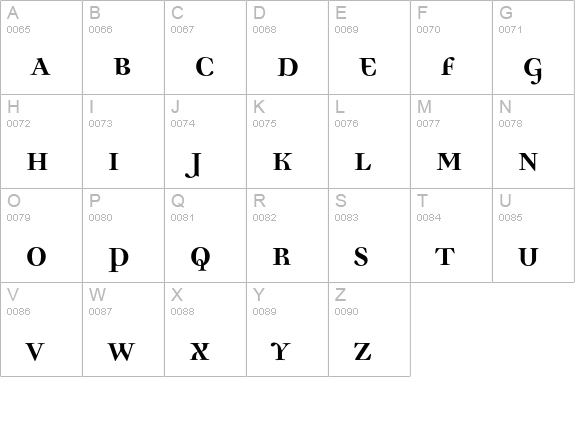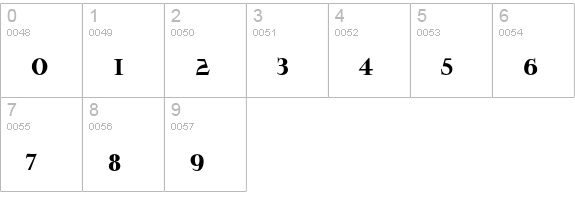
DemocraticaBoldLining Font Details
DemocraticaBoldLining is a striking and modern font that exudes confidence and sophistication. With its bold lettering and clean lines, this typeface is perfect for making a bold statement in any project. Whether used for headlines, logos, or branding materials, DemocraticaBoldLining commands attention and leaves a lasting impression. What sets DemocraticaBoldLining apart is its unique combination of strength and elegance, making it versatile for a wide range of design applications. Whether you're looking to create a sleek and professional look or add a touch of contemporary flair, this font is sure to deliver. Best of all, DemocraticaBoldLining is free to download at FontsMarket.com. So don't hesitate to add this eye-catching font to your collection and elevate your designs to the next level. Let DemocraticaBoldLining be the bold and impactful element that sets your work apart from the rest.